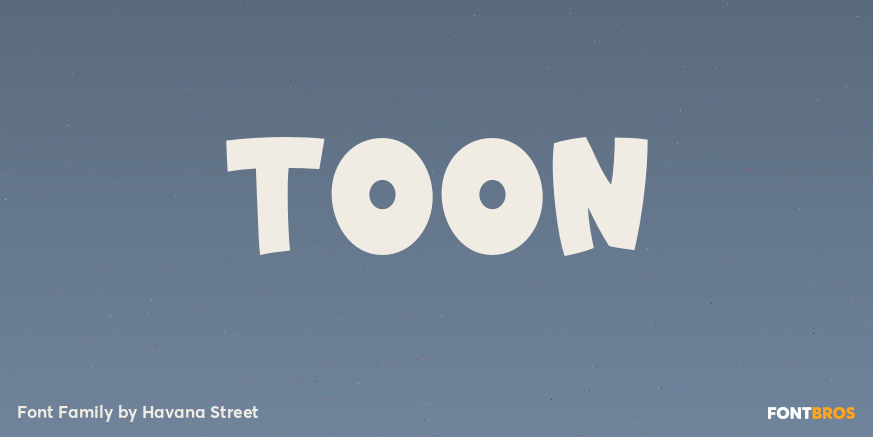
Toon
About Toon
Toon is the essential 1940s style cartoon font! This classic face pairs perfectly with any playful art deco design you may create. Previously available only from the hand of the artist, Havana Street has brought original 1940s style Hollywood hand-lettered,…